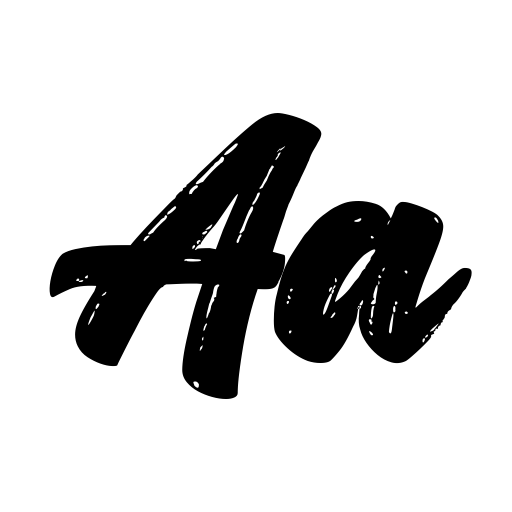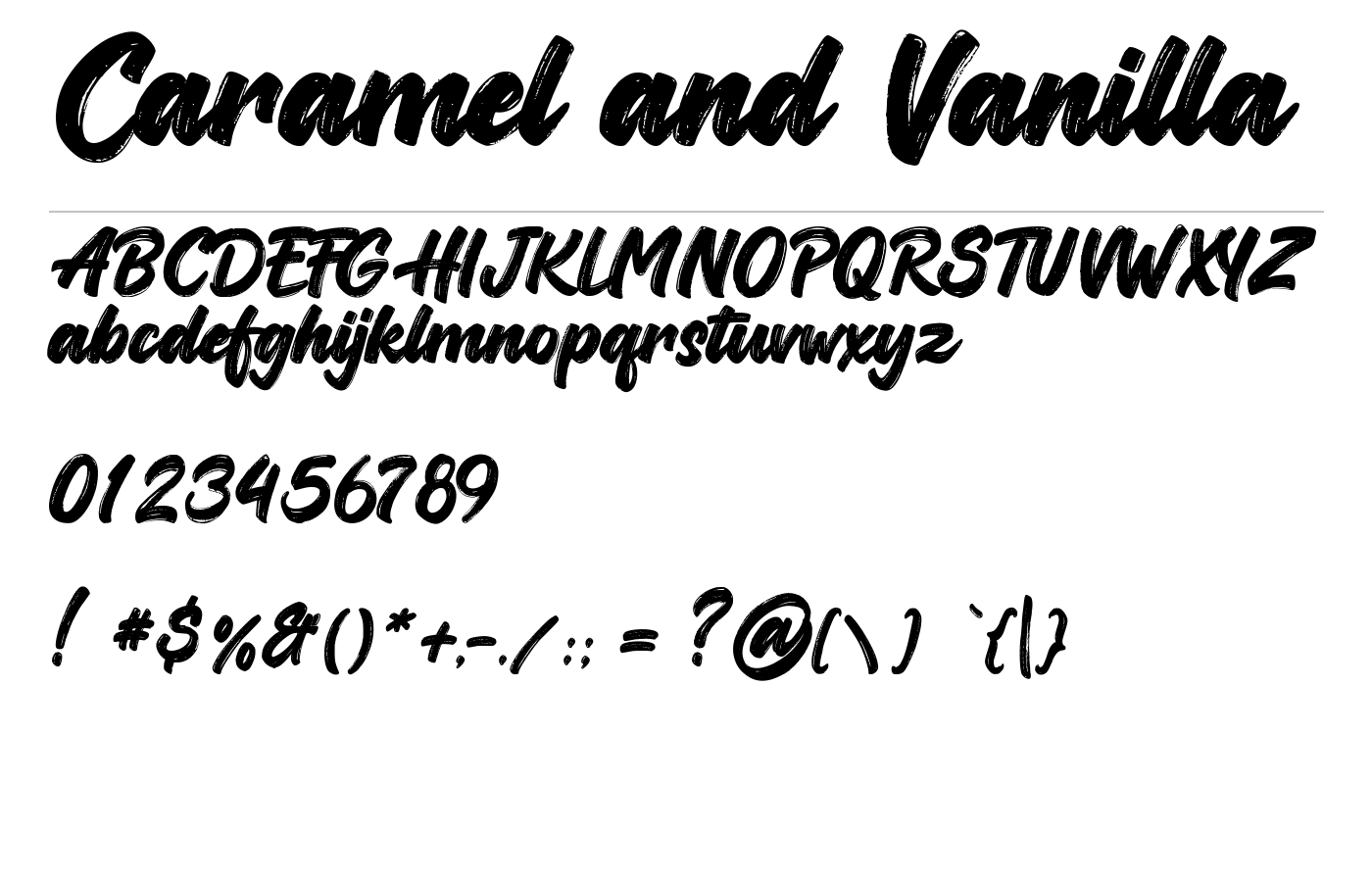
Caramel and Vanilla is a bold, brush script font with a casual and artistic feel. Its thick, textured strokes mimic hand-painted lettering, giving it a lively and approachable personality perfect for creative branding, posters, or packaging that aims to feel personal and dynamic. This font works best for headlines and display use, where its energetic style can draw attention and convey warmth.
Caramel and Vanilla Font
About Caramel and Vanilla Font
| Font family | Caramel and Vanilla Font |
| Designer | CAT.B |